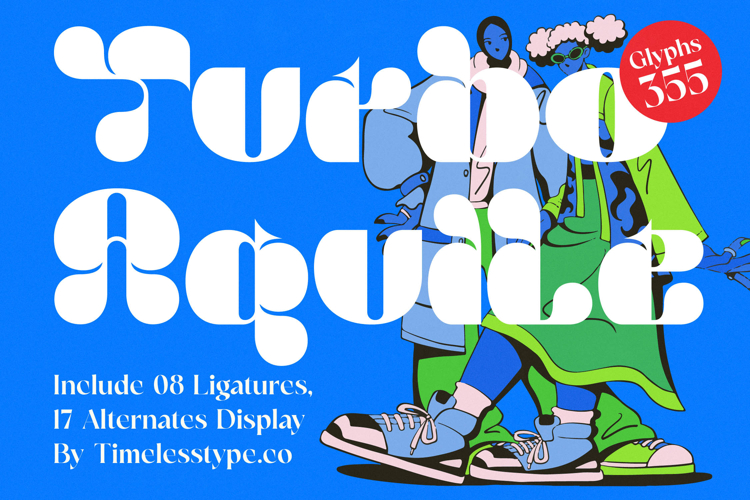
Turbo Aquile - Display Font
Unleash a wave of retro-futuristic charm and dynamic personality into your designs. Introducing Font Turbo Aquile - Display Font Groovy, a typeface that masterfully blends nostalgic groovy aesthetics with a contemporary, bold presence. Its unique character, defined by fluid, organic shapes and a playful rhythm, ensures your headlines and branding captivate with undeniable flair. This display font is engineered for memorable impact.
Experience unparalleled creative flexibility with a font designed for maximum impact. Font Turbo Aquile - Display Font Groovy is robust, featuring 8 ligatures and 17 alternates display options for enhanced typographic artistry. With its extensive multilingual support, Font Turbo Aquile - Display Font Groovy adapts seamlessly across global markets, making it incredibly versatile for international projects.
Transform your projects with a typeface that demands attention and communicates vibrancy. Font Turbo Aquile - Display Font Groovy is perfectly suited for branding initiatives aiming for a youthful and energetic identity. It excels in packaging design and editorial design for attention-grabbing headlines. Ideal for posters, album art, merchandise, and social media graphics, it adds distinctive appeal.
Elevate your brand’s visual story with Font Turbo Aquile - Display Font Groovy. This isn't merely a font; it's a powerful tool for crafting memorable impressions and establishing a truly unique visual identity. Invest in a typeface that promises striking aesthetics, versatility, and global adaptability crucial for today's diverse design landscape. Secure Font Turbo Aquile - Display Font Groovy to ensure your creations consistently stand out.